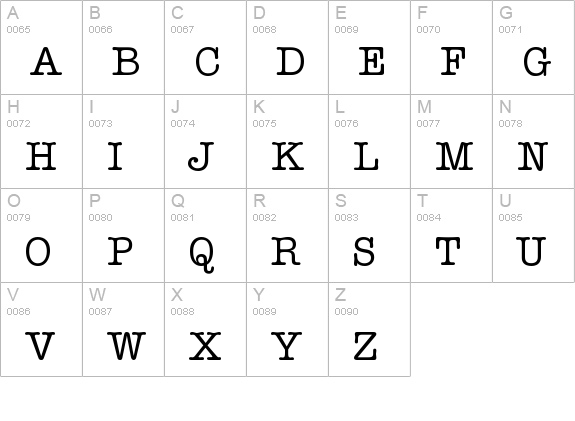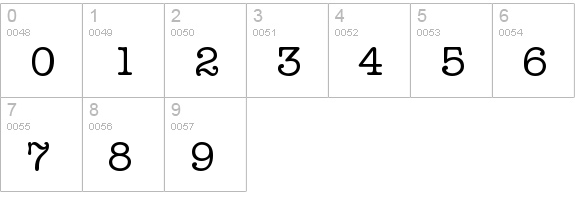
Memorandum Font Details
Memorandum font is a sleek and modern typeface that exudes professionalism and elegance. With its clean lines and sophisticated style, Memorandum is the perfect choice for a wide range of design projects, from business presentations to branding materials. This versatile font can effortlessly elevate any text with its timeless appeal. The best part? Memorandum font is completely free to download at FontsMarket.com. You can easily access this beautiful typeface and enhance your designs with a touch of class and refinement without spending a penny. Whether you're a graphic designer, marketer, or student, Memorandum font is a valuable addition to your font library. Download it today and take your projects to the next level with this exquisite typeface.